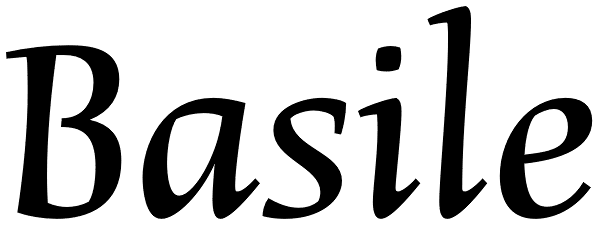
Basile
Basile is the conclusion of a process that began with the learning of italic handwriting in a roballos-Naab studio course. In this workshop I developed a variation of chancery handwriting which had a more pronounced wider than its historical model...